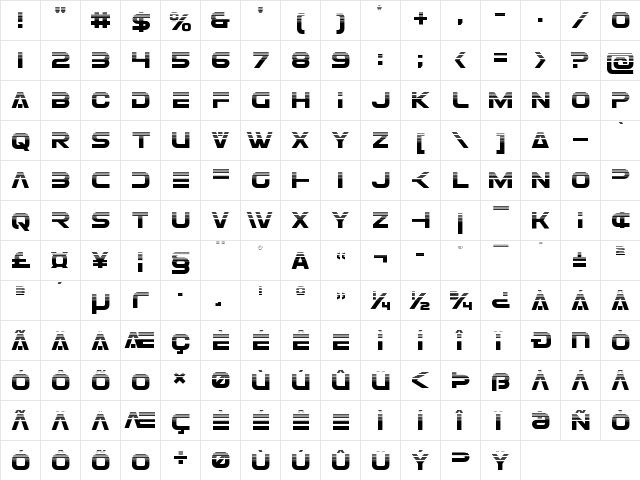
Eurofighter Halftone Regular
Design Context for Eurofighter Halftone Typeface
Eurofighter Halftone takes a measured approach to typography — its balanced proportions and neutral character make it a reliable workhorse for both digital and print work.